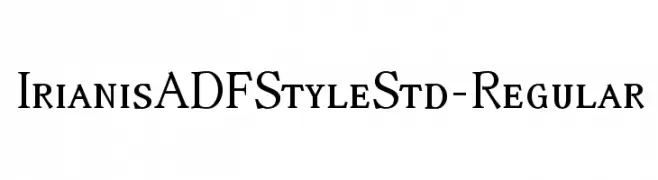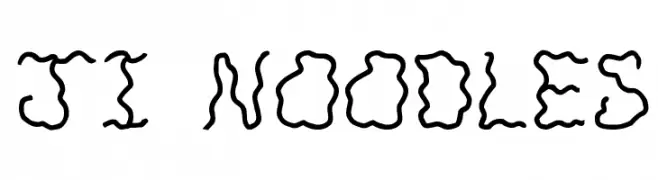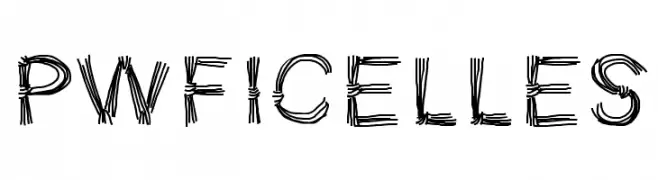
( Fonts by Jeri Ingalls - littlehouse.homestead.com )
A playful, wavy font with noodle-like curves and a whimsical style.
( Fonts by Arkandis Digital Foundry )
A classic serif font with a modern, elegant style.
A sketch-like, playful font with overlapping lines for a textured look.